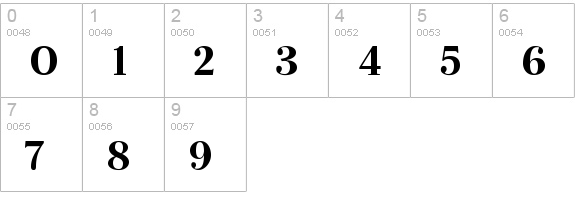
Serif72 Beta Black Font Details
Serif72 Beta Black is a maximum-weight, dramatic variant in the Serif72 typeface family \xE2\x80\x94 well suited to maximum-impact headlines, posters, and packaging.
Serif72 Beta Black is a bold and striking font that commands attention with its strong presence and elegant design. Perfect for making a statement in headlines, titles, and branding materials, this font exudes confidence and sophistication. The sleek serifs and modern styling of Serif72 Beta Black make it a versatile choice for a wide range of design projects, from print materials to digital media. Best of all, Serif72 Beta Black is available for free download at FontsMarket.com. Whether you're a seasoned designer looking to add a new font to your collection or a beginner exploring typography for the first time, this font is a valuable addition to any creative toolkit. Don't miss out on the opportunity to enhance your projects with the timeless appeal of Serif72 Beta Black. Download it now and elevate your designs with this stunning typeface.